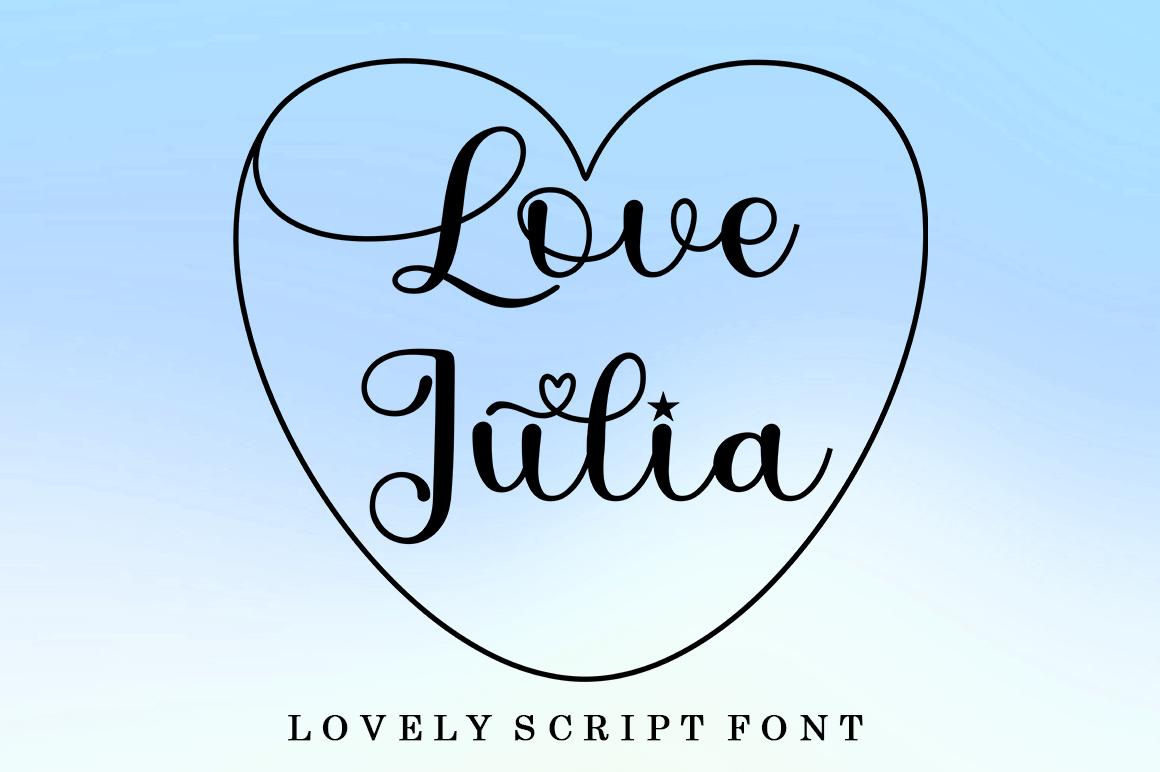
Love Julia Font Description
Love Julia is a quirky lovely font, defined by the characters dancing along the baseline. Amazingly versatile, this font fits perfectly into a variety of designsl. Add it to your favorite creative ideas and watch how it brings them to life!